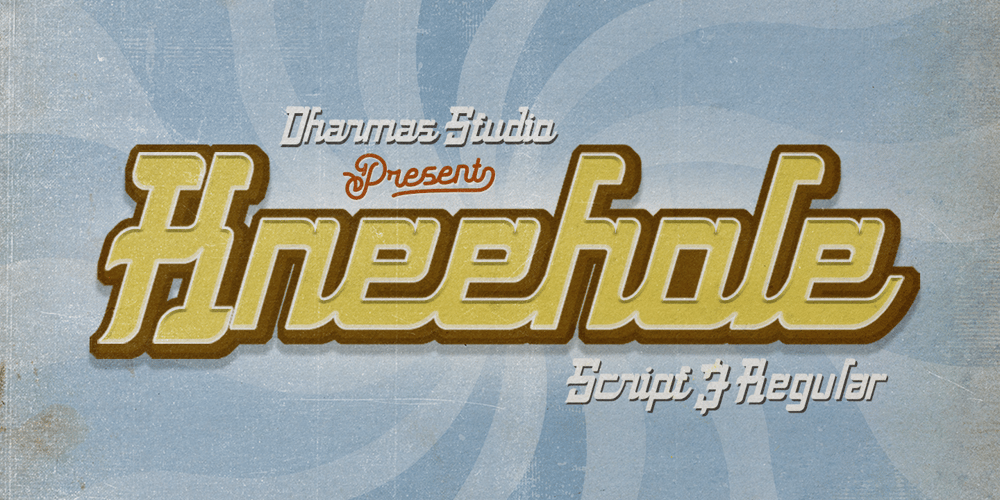
Kneehole Font Family was designed by Ahmad Jamaludin and published by Ahmad Jamaludin. Kneehole contains 2 styles and family package options. With two styles available for each type – Regular and Script, KNEEHOLE is your ideal choice for crafting logos, signboards, or elegant wordmarks.This font draws inspiration from the iconic typography trends of the late 60s and throughout the 70s, adding a touch of nostalgic flair to your creative projects.Features: Kneehole Main File Has 2 Families: Regular and Script Instructions (Access special characters, even in Cricut Design) Unique Letterforms Works on PC & Mac Enjoy Designing!Dharmas Studio